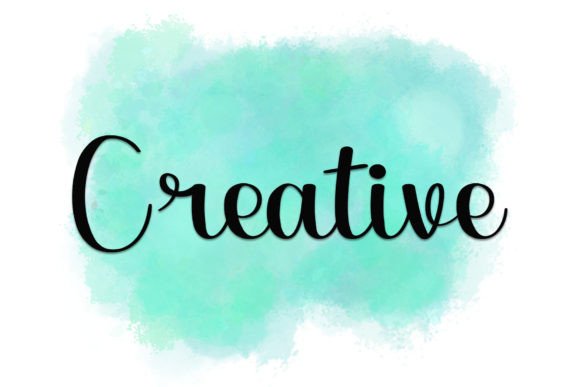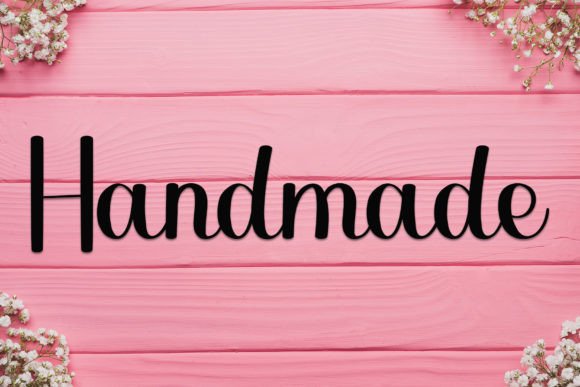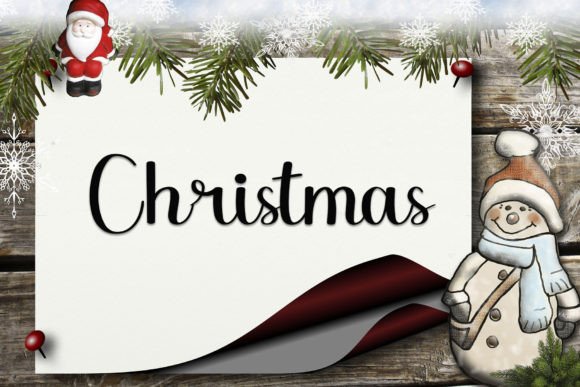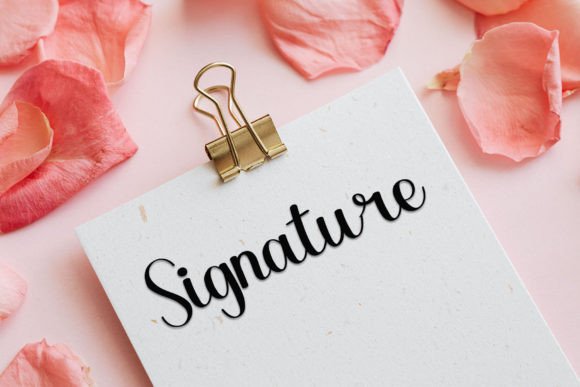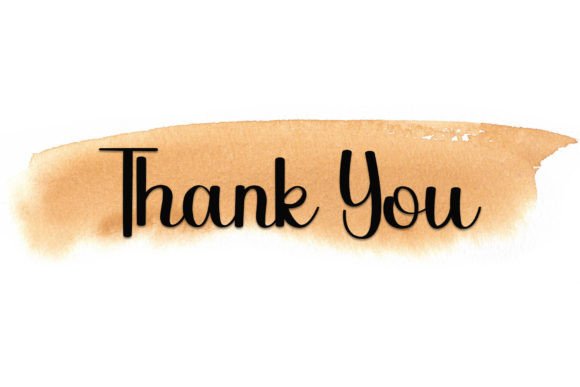
Introducing Avocado Font: Elevate Your Designs with Elegance
Are you on the hunt for a font that adds a touch of sophistication and whimsy to your projects? Look no further than the Avocado Font, a stunning handwritten font that is sure to capture your heart. With its elegant touch and timeless style, Avocado Font is the perfect addition to your design arsenal.
The Beauty of Avocado Font
Avocado Font is a neat and beautiful handwritten font that boasts an incredibly distinct style. Its elegant touch is perfect for a wide range of projects, from branding and packaging to wedding invitations and DIY crafts. The font’s unique charm lies in its ability to convey a sense of sophistication and playfulness simultaneously, making it an excellent choice for designers and crafters alike.
What Makes Avocado Font Stand Out?
- Unique and Timeless Style: Avocado Font’s style is both classic and modern, ensuring that your designs will stand the test of time.
- Elegant Touch: The font’s elegant touch adds a level of sophistication to any project, making it perfect for high-end branding and luxury designs.
- Versatility: Avocado Font is suitable for a wide range of projects, from digital designs to print materials.
- Easy to Read: The font’s clear and legible design ensures that your message will be conveyed effectively.
Avocado Font is a dream come true for designers and crafters who want to add a personal touch to their projects. Whether you’re creating:
- Branding and Packaging: Use Avocado Font to create stunning logos, business cards, and product labels.
- Wedding Invitations and Stationery: Add a touch of elegance to your wedding invitations, save-the-dates, and stationery.
- DIY Crafts: Use Avocado Font to create beautiful handmade cards, gift tags, and other paper crafts.
- Digital Designs: Incorporate Avocado Font into your social media graphics, blog headers, and website designs.
Tips for Using Avocado Font
To get the most out of Avocado Font, here are some tips to keep in mind:
- Pair with Other Fonts: Combine Avocado Font with other fonts to create a unique and visually appealing design.
- Experiment with Colors: Try out different color schemes to find the perfect match for your design.
- Play with Sizes: Use Avocado Font in various sizes to create visual hierarchy and add emphasis to your design.
Avocado Font is a beautiful and elegant handwritten font that is sure to elevate your designs. With its unique and timeless style, versatility, and ease of use, it’s the perfect addition to your design toolkit. Whether you’re a designer or crafter, Avocado Font is sure to inspire you to create spectacular designs that will leave a lasting impression.
So, fall in love with Avocado Font and use it to create stunning designs that showcase your creativity and style!